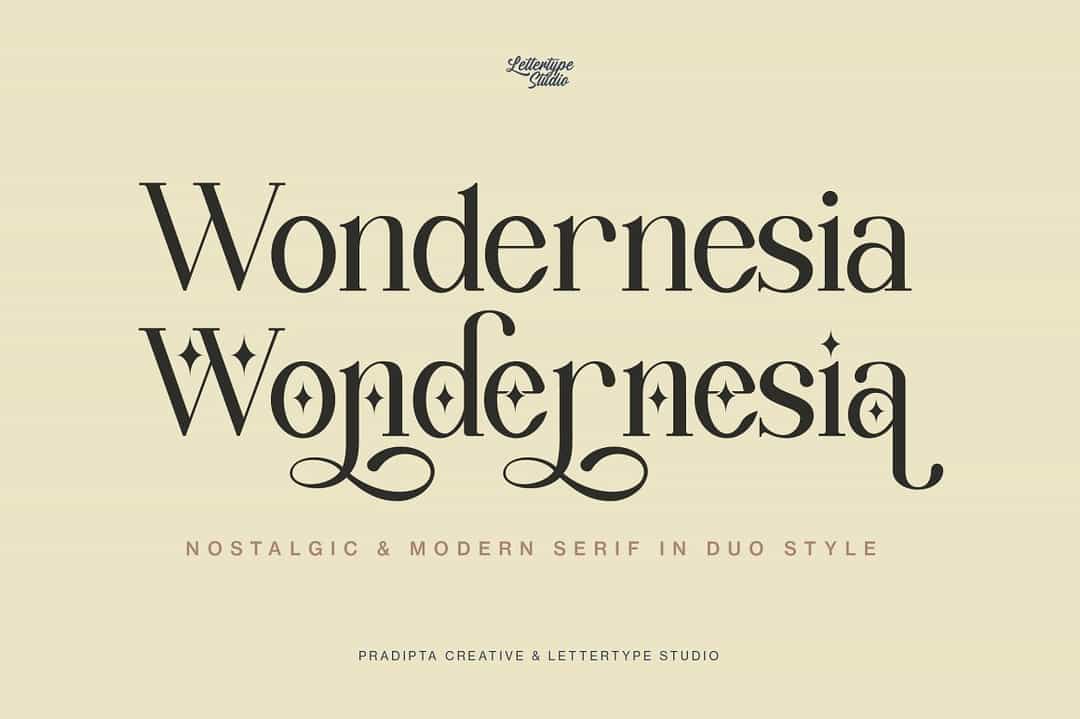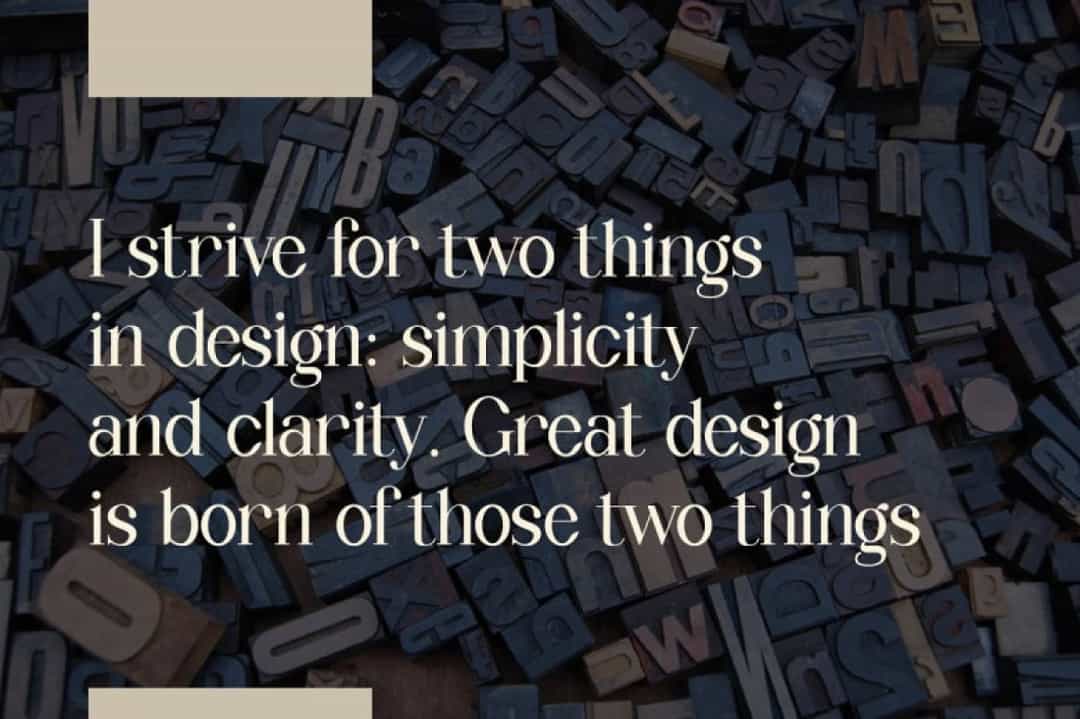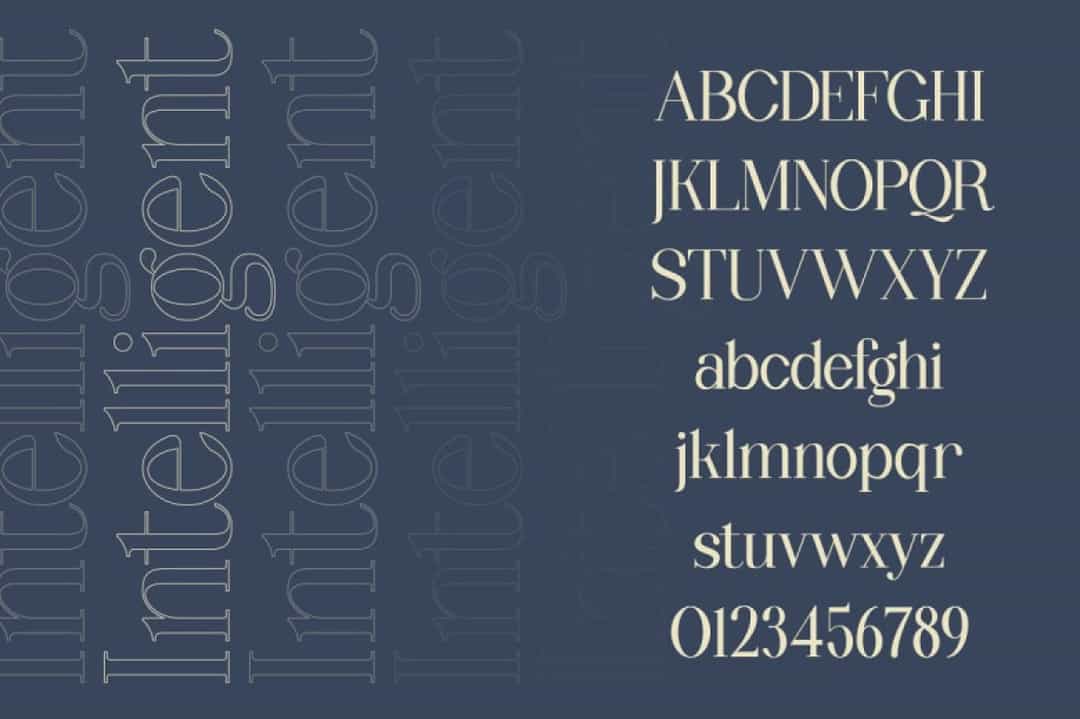
Discover Wondernesia Nostalgic Font, part of the Serif collection—a versatile and unique font perfect for adding a personal touch to your projects. Download it for free and enjoy crafting designs with style, from invitations to social media posts. This font is available exclusively for personal use, giving you the freedom to create without limits. Unlock your creativity with Wondernesia Nostalgic Font today!
Wondernesia is an old-fashioned yet contemporary serif typeface with two styles. If you are searching for a font from the 90s-80s while also wanting something contemporary, Wondernesia could meet both needs perfectly – both its ancient roots as Indonesia as well as modern adaptation.